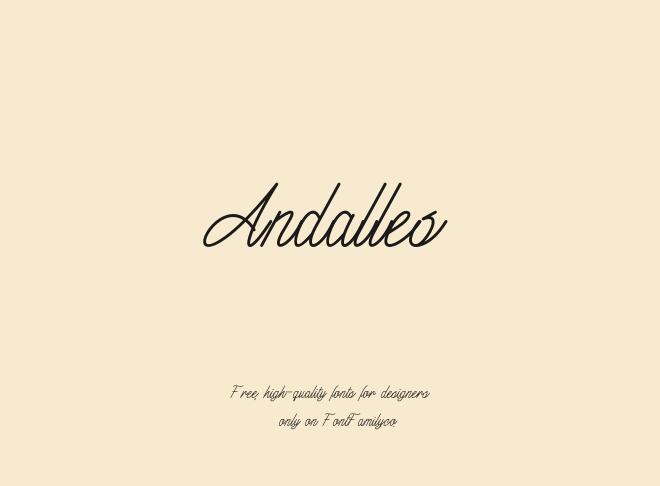
Andalles Font
Andalles Font is a beautifully crafted script font with a distinctive handwritten style. Designed by Andalles Foundry in 2016, this font is free for personal use, making it a perfect choice for designers on a budget. Its unique calligraphic flair and decorative elements set it apart from other fonts, offering a personal touch to your designs. Best suited for logos, invitations, greeting cards, or any design that requires a handcrafted look, Andalles Font evokes a sense of elegance and creativity. Its high legibility even in small sizes also makes it versatile for various design purposes. Compared to other script fonts, Andalles Font stands out with its unique character and charm. It's not just a font, it's a design tool that adds personality and emotion to your work. Choose Andalles Font for a touch of sophistication and a splash of creativity in your designs.